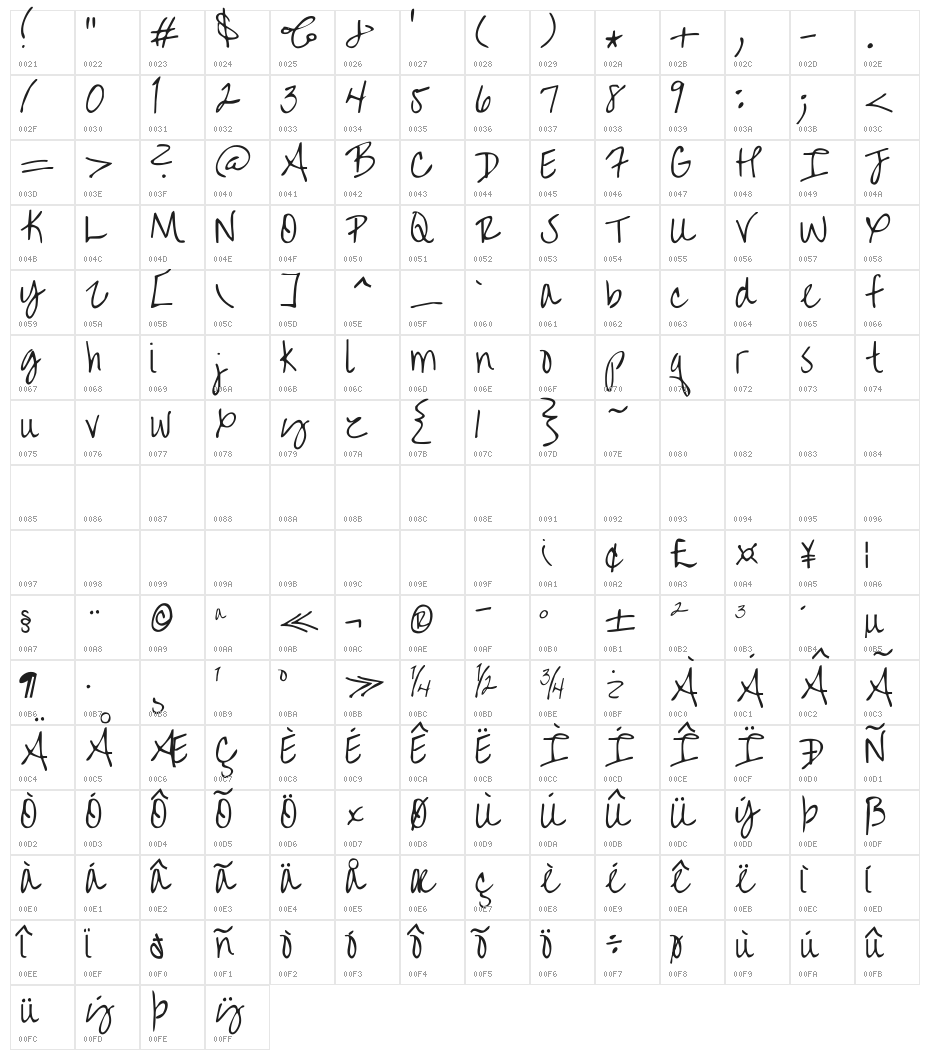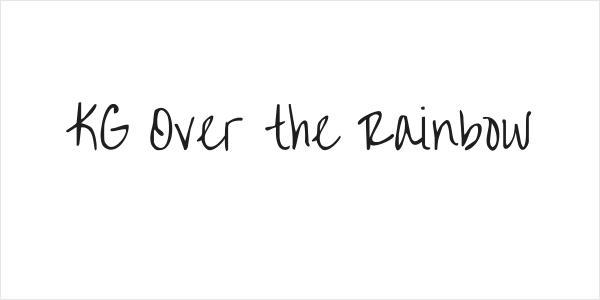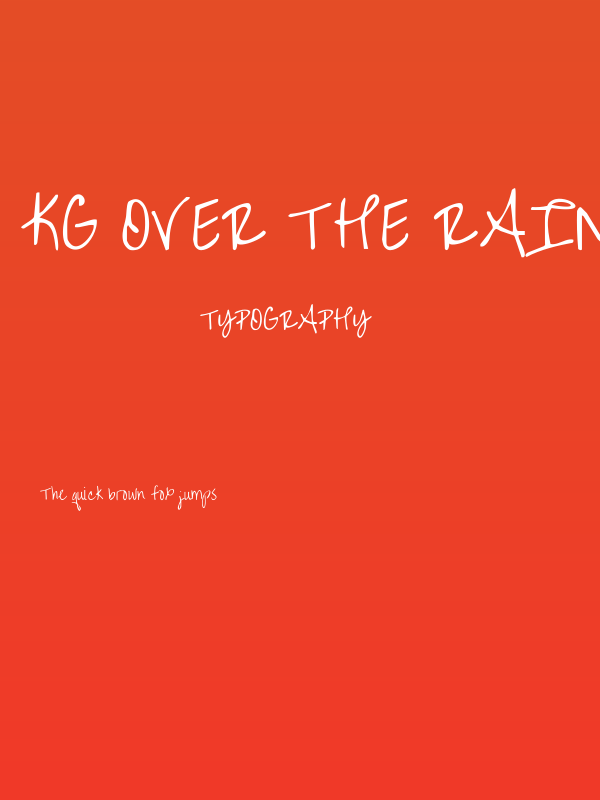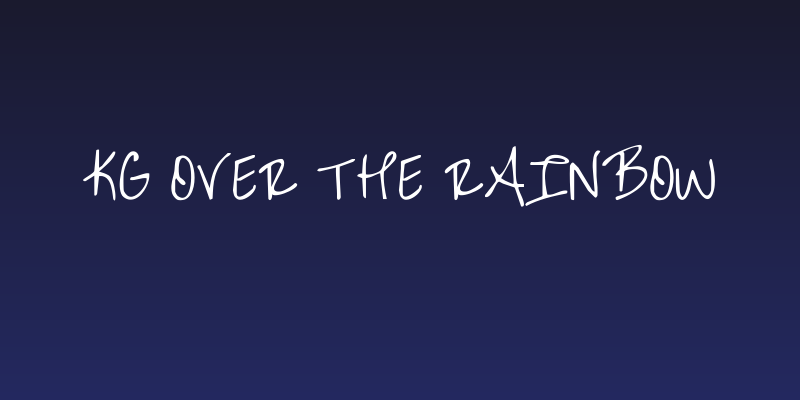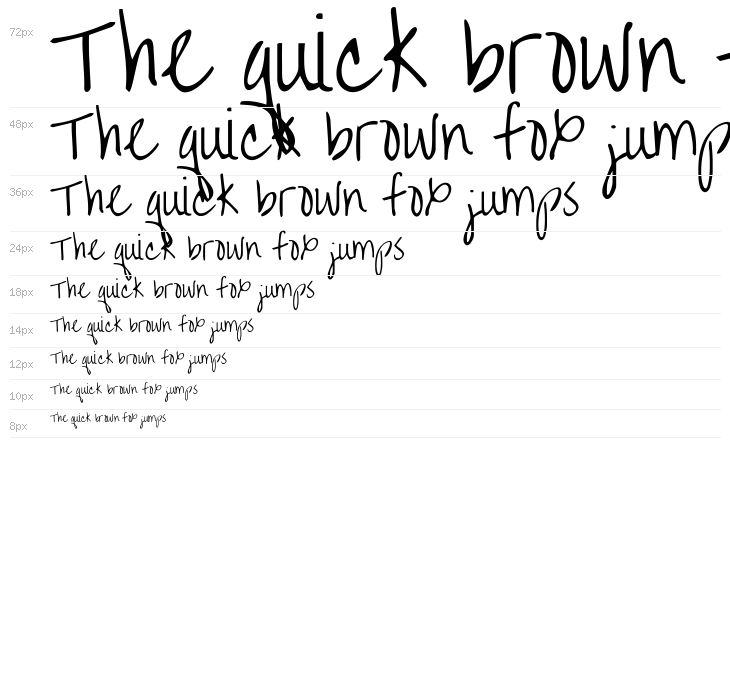
KG Over the Rainbow Font
KG Over the Rainbow Description
This playful and whimsical font captures the essence of carefree handwriting with its fluid and dynamic strokes. The characters are crafted with a natural, flowing style that mimics the spontaneity of a handwritten note. Each letter varies slightly in size and angle, adding to the authentic handwritten feel. The uppercase letters are bold and expressive, while the lowercase letters maintain a consistent rhythm, creating a harmonious balance. The numbers and special characters are equally lively, ensuring a cohesive look across all text elements. This font is perfect for projects that require a personal touch, such as invitations, greeting cards, or children's book illustrations. Its unique style makes it stand out, offering a refreshing alternative to more traditional typefaces.
| Use Case | Headlines, Creative projects |
| Proposed Projects | Ideal for invitations, greeting cards, children's books, and creative projects requiring a personal touch. |